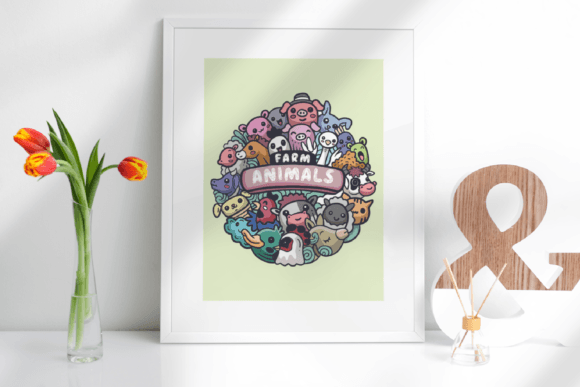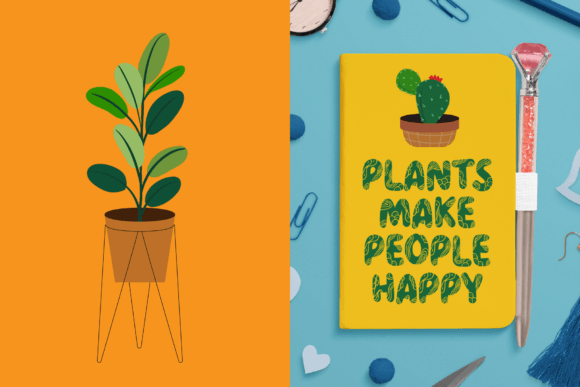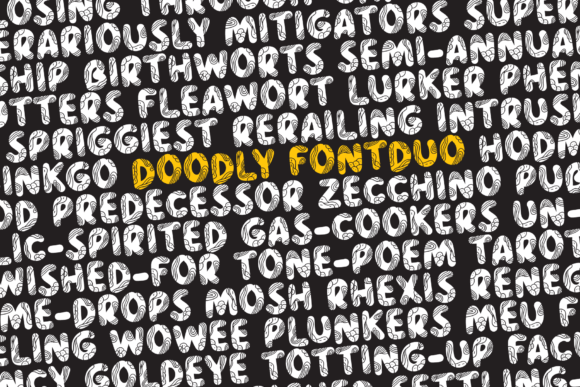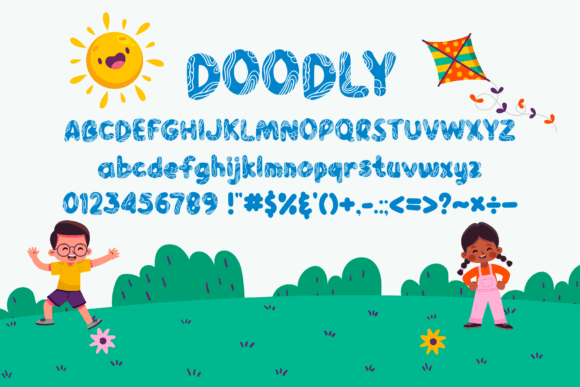
Doodly Font: Add a Playful Touch to Your Designs
Are you tired of using the same old fonts in your designs? Look no further than the Doodly font, a fun and quirky decorative font that’s sure to brighten up any project. With its playful and whimsical style, Doodly is perfect for designers and crafters who want to add a touch of personality to their work.
What is Doodly Font?
Doodly font is a type of decorative font that’s designed to look like hand-drawn doodles. It’s characterized by its irregular shapes, uneven lines, and playful flair. This font is perfect for creating eye-catching titles, headings, and text that will make your designs stand out from the crowd.
Features of Doodly Font
So, what makes Doodly font so special? Here are just a few of its key features:
- Playful and whimsical style: Doodly font has a fun and carefree vibe that’s perfect for designs that need a bit of personality.
- Hand-drawn look: The font’s irregular shapes and uneven lines give it a hand-drawn look that’s perfect for creating unique and eye-catching text.
- Decorative style: Doodly font is a decorative font that’s perfect for titles, headings, and other text that needs to make a statement.
- Easy to read: Despite its playful style, Doodly font is still easy to read, making it perfect for designs that need to communicate a message.
Uses for Doodly Font
So, what can you use Doodly font for? The possibilities are endless, but here are a few ideas to get you started:
- Social media graphics: Add a playful touch to your social media graphics with Doodly font.
- Party invitations: Create eye-catching party invitations with Doodly font.
- Crafting projects: Add a personal touch to your crafting projects with Doodly font.
- Signs and posters: Create eye-catching signs and posters with Doodly font.
- Digital art: Use Doodly font to add text to your digital art projects.
Tips for Using Doodly Font
Here are a few tips for using Doodly font in your designs:
- Use it sparingly: Doodly font is a decorative font, so use it sparingly to avoid overwhelming your design.
- Pair it with a simple font: Pair Doodly font with a simple font to create contrast and make your design more readable.
- Experiment with colors: Doodly font looks great in bright, bold colors, so don’t be afraid to experiment.
- Have fun: Most importantly, have fun with Doodly font! It’s a playful font that’s meant to bring a smile to your face.
In conclusion, Doodly font is a fun and quirky decorative font that’s perfect for designers and crafters who want to add a playful touch to their work. With its hand-drawn look, playful style, and ease of use, Doodly font is sure to brighten up any design. So why not give it a try and see what kind of creative projects you can come up with?